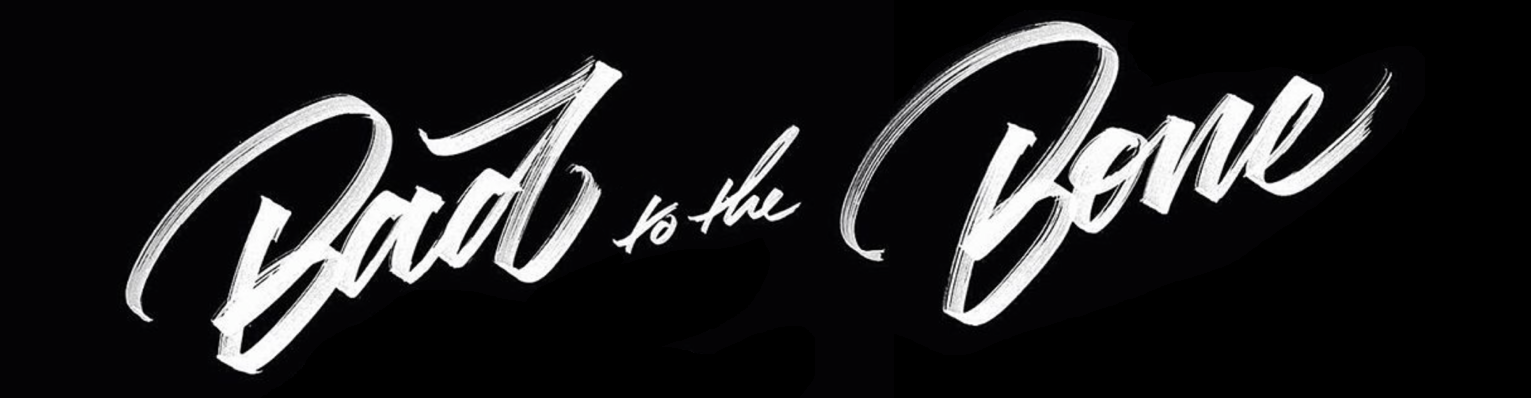
Believe this too be handwritten, looking both the B’s and the e’s
Actually, Tom, I think this is one of those new SVG fonts, which incorporates gradients, and that allows the designer to create variations in letters to give the impression of being hand written. I haven’t had any time to look up any SVG fonts online, and there are a lot of them.